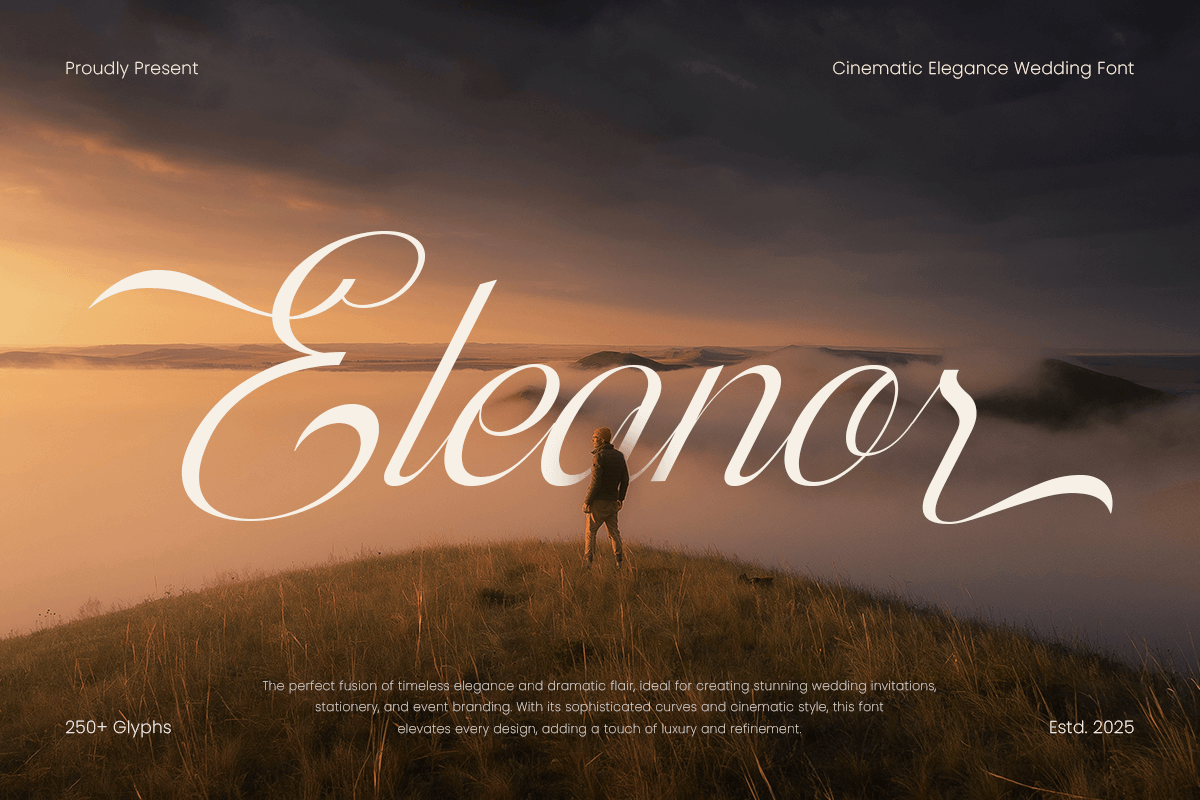
Eleanor
-Cinematic Elegance Wedding FontEleanor - Cinematic Elegance Wedding Font
ELEANOR is a cinematic elegance wedding script font designed to evoke timeless beauty and sophistication. Perfect for luxury weddings, high-end invitations, and romantic branding, ELEANOR combines graceful curves with delicate calligraphy to create a refined, elegant aesthetic that adds a touch of class to any project.
Whether you’re designing wedding invitations, save-the-dates, or elegant logos, ELEANOR provides the perfect balance of romantic style and professional polish. Inspired by classic cinematic elegance, this font will ensure your special event or brand leaves a lasting impression.
ELEANOR – Cinematic Elegance Wedding Script Font Features
Elegant script letterforms with a cinematic flair
Ideal for wedding invitations, logos, and high-end branding
Graceful, romantic design with professional sophistication
OpenType features for advanced typographic styling
Create unforgettable moments with ELANOR – the perfect font for cinematic elegance and timeless wedding designs. 💍✨